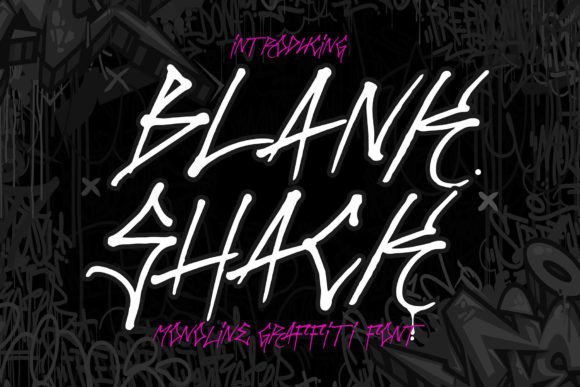
The Urban Edge of Typography: Unleashing the Power of Black Shack Font
I’ll never forget the design struggle I faced while working on a streetwear branding project. My client wanted a font that embodied the audacity of graffiti, yet exuded sophistication and modernity. After hours of scouring font libraries, I stumbled upon “Black Shack” – a game-changing discovery that infused my designs with a chic urban vibe. In this article, I’ll share my experience with this versatile font, its features, and how to make the most of it in your creative projects.
A First Impression: The Allure of Black Shack
“Black Shack” infuses a chic urban vibe with sleek monoline strokes, embodying the audacity of graffiti expressed in a minimalist style. The sleek, uninterrupted lines interweave modern aesthetic with an authentic graffiti feel. This font resonates sophistication, being the ideal choice for graphic street art, captivating posters, and standout branding.
- ✨ Sleek, modern aesthetic with a graffiti edge
- ✅ Highly versatile for various design applications
- 💡 Excellent for creating attention-grabbing headlines and titles
- 🎨 Works well with both bold and subtle design color schemes
- ⚠️ Limited use for body text due to its bold, attention-grabbing nature
- 🤔 May require manual kerning adjustments for optimal results
The Designer Inspiration Behind Black Shack
Imagine a world where street art and high-end design converge. The creators of Black Shack drew inspiration from the urban landscape, where graffiti and street art thrive. By distilling the essence of graffiti into a sleek, modern font, they crafted a typographic masterpiece that resonates with designers and artists alike.
Q: What is the primary use for Black Shack font?
A: Black Shack is ideal for creating attention-grabbing headlines, titles, and branding elements that require a modern, urban aesthetic.
Q: Can I use Black Shack for body text?
A: While possible, Black Shack’s bold nature makes it more suitable for headlines and titles. For body text, consider a complementary font with better readability.
Q: Does Black Shack support OpenType features?
A: Yes, Black Shack supports OpenType features, including stylistic alternates and glyphs. Access these features through compatible design software like Adobe Creative Cloud.